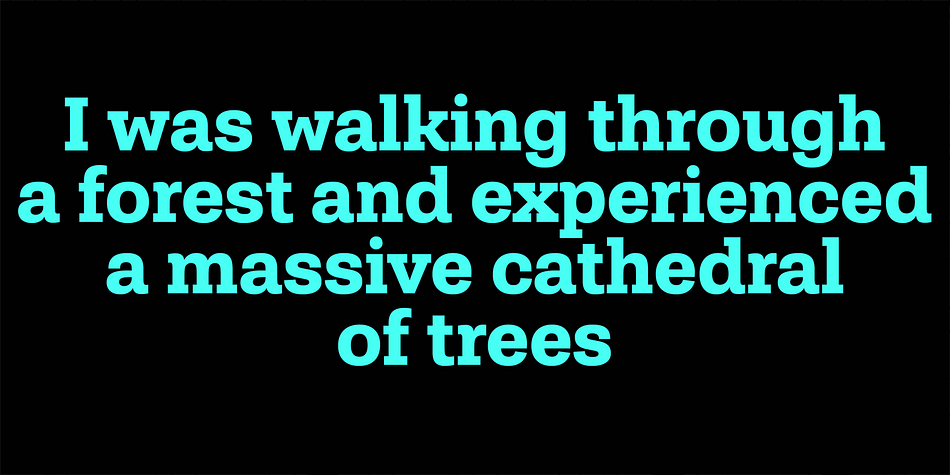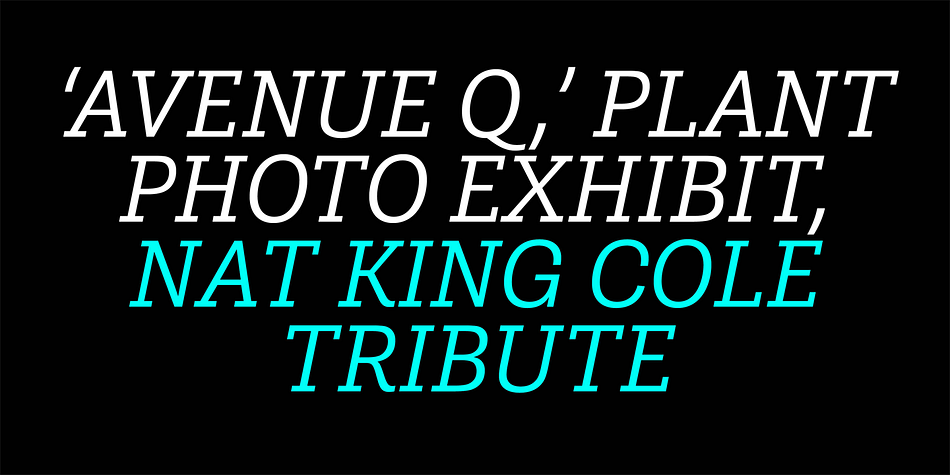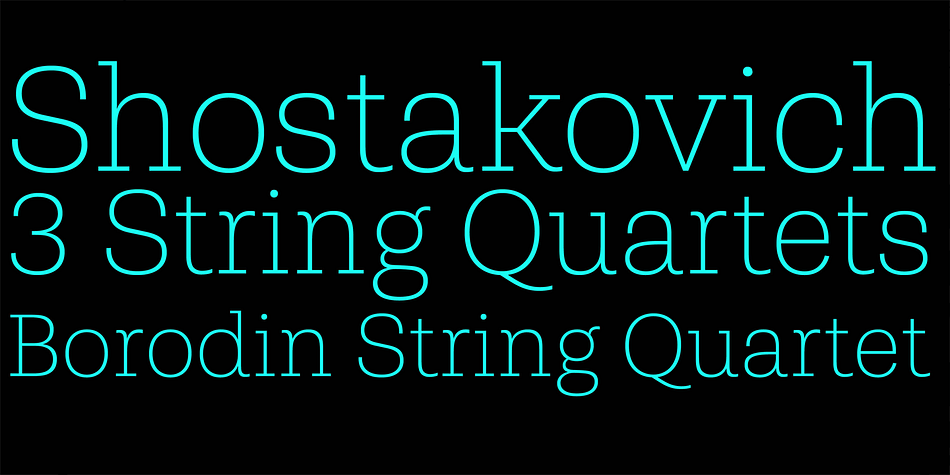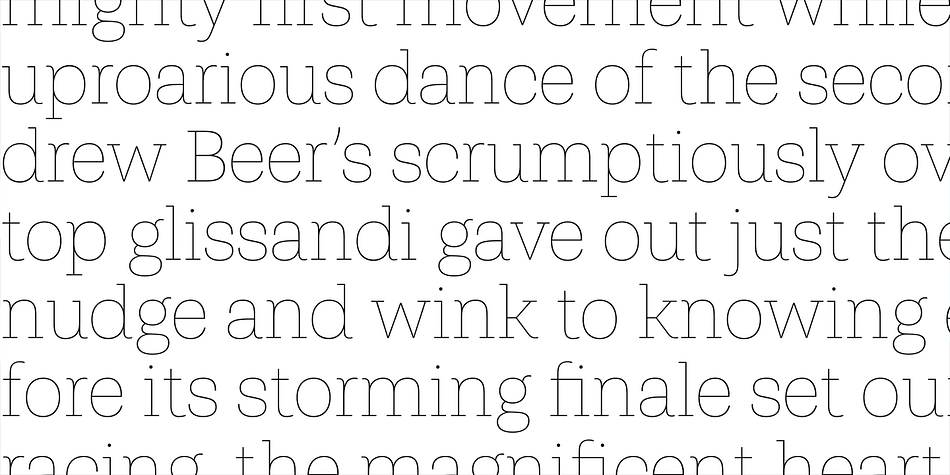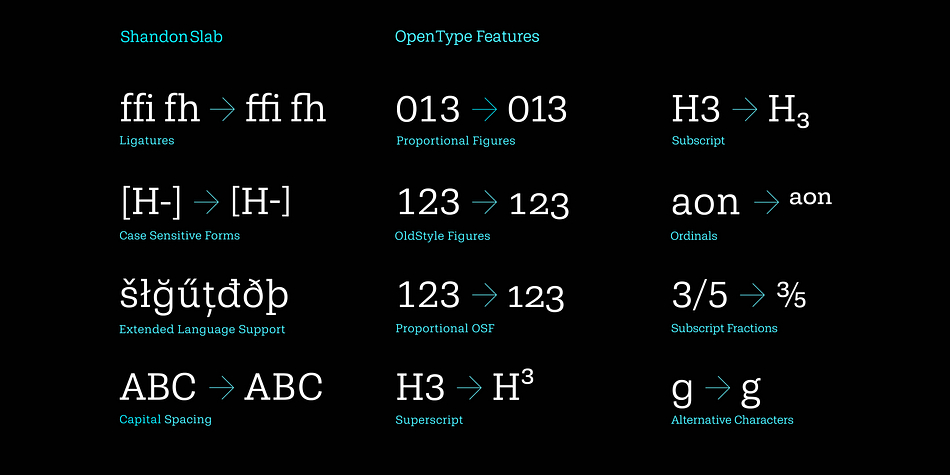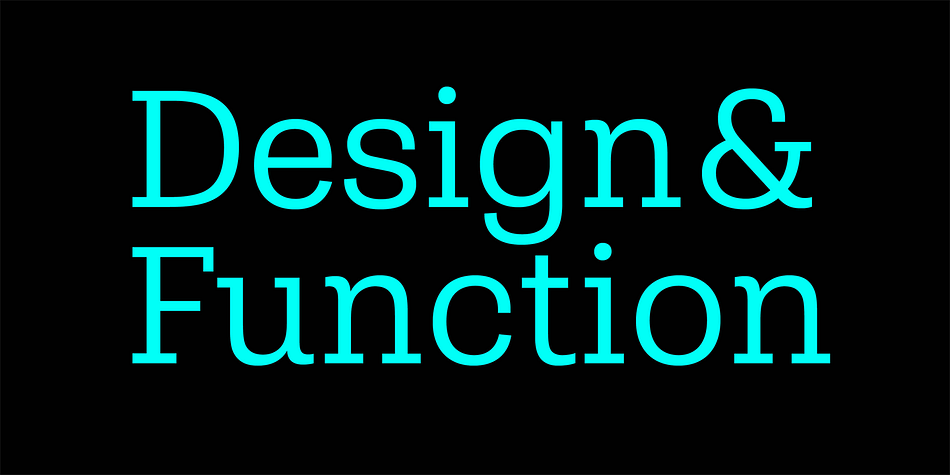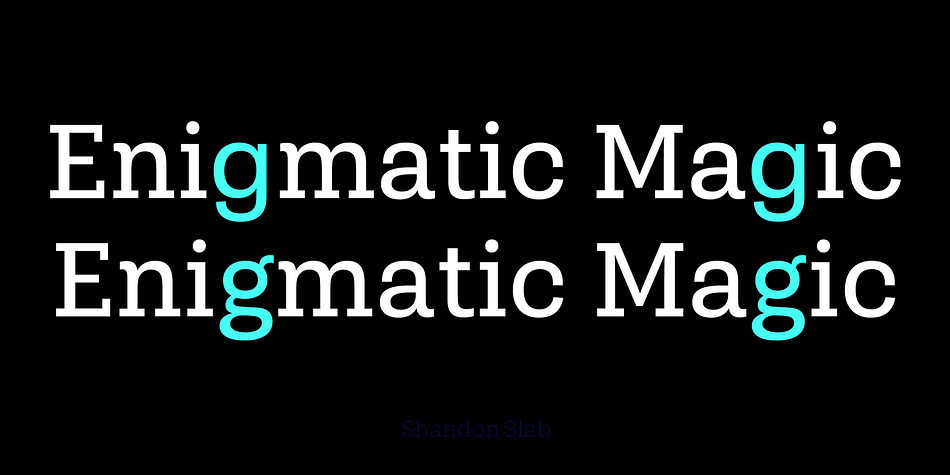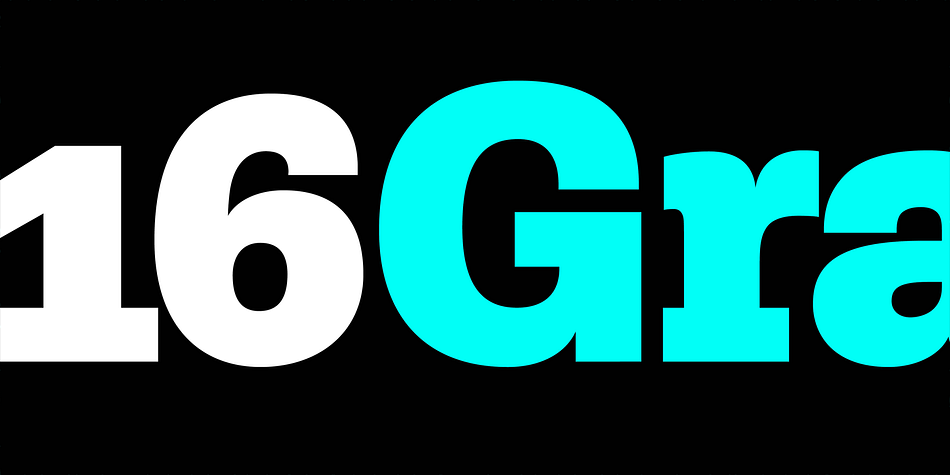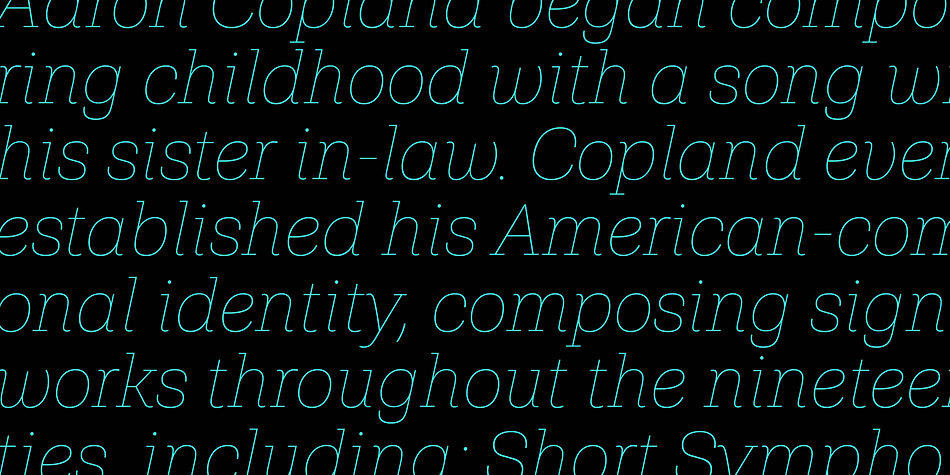
Designed by Dieter Hofrichter, Shandon Slab is a slab serif font family. This typeface has eighteen styles and was published by Hoftype.
Shandon Slab adds a new colour to the prominent family of serif-dominant typefaces. A distinctive look with its slightly flowing characteristics sets it apart from most members of the category. The contrasting italic styles add a vivid accent.
Shandon Slab is predestined for editorials, headlines, and eye-catching text applications.
The Shandon Slab family consists of 18 styles. It comes in OpenType format with extended language support for more than 40 languages. All weights contain standard and discretionary ligatures, proportional lining figures, tabular lining figures, proportional old style figures, lining old style figures, matching currency symbols, fraction- and scientific numerals, matching arrows and alternative characters.